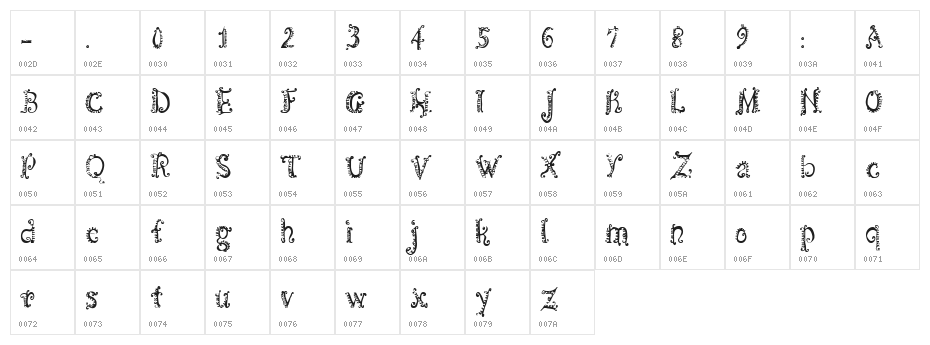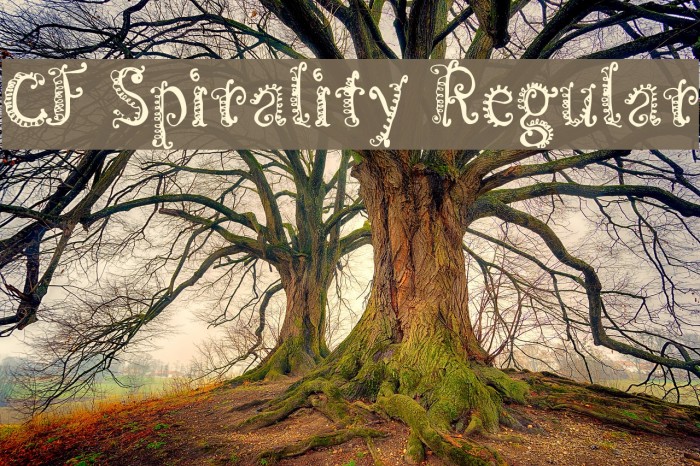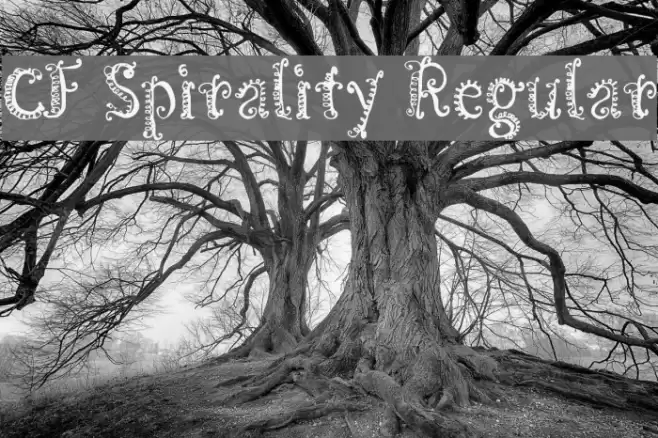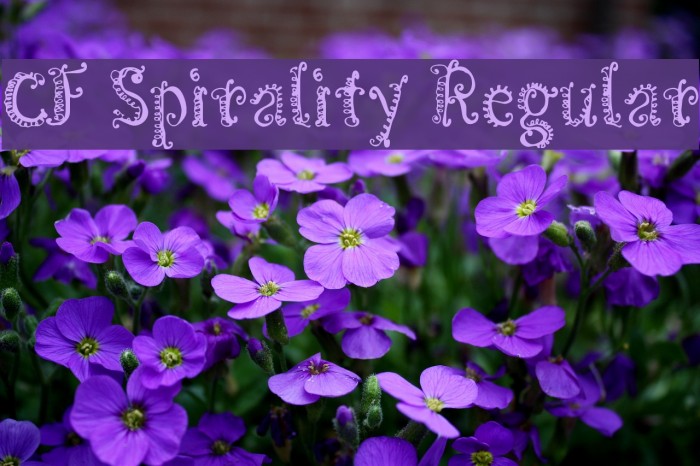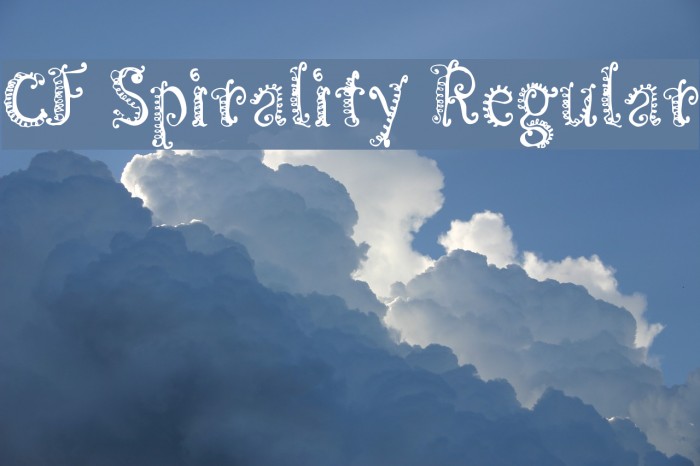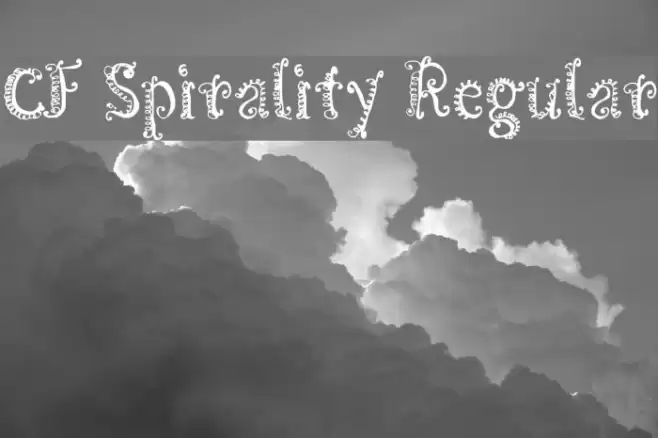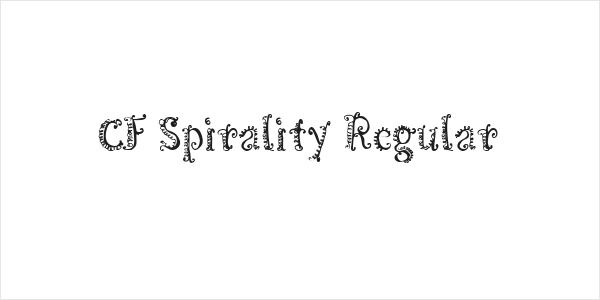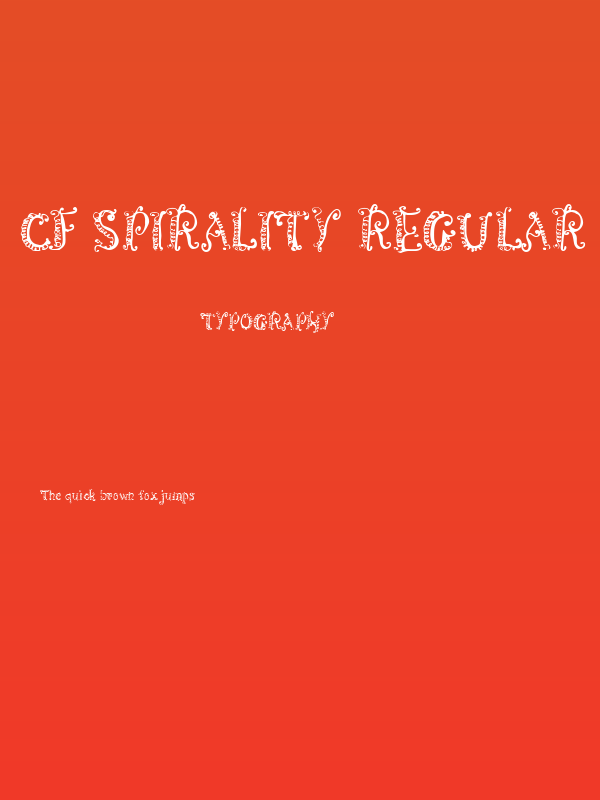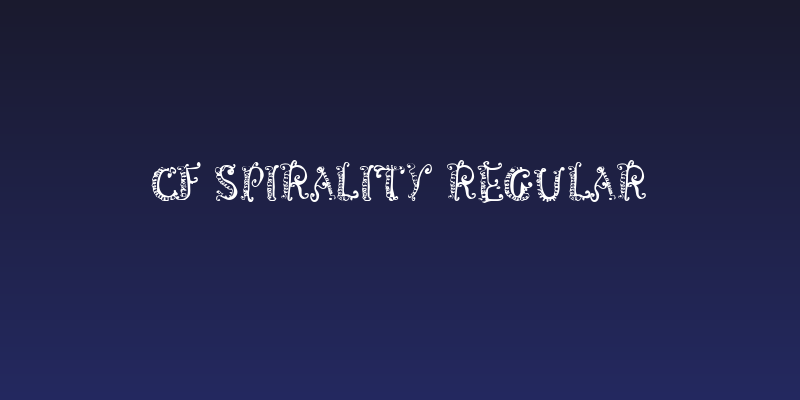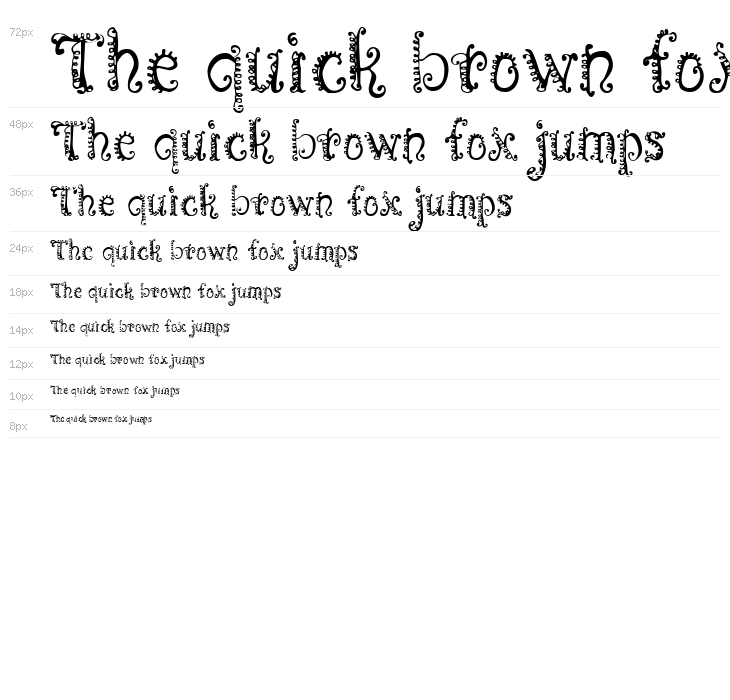
CF Spirality Regular Font
CF Spirality Regular Description
This font features an intricate and whimsical design, characterized by its decorative spirals and curls that embellish each letter. The playful and ornate style gives it a unique personality, making it stand out with its artistic flair. The letters are bold and have a substantial presence, with each character adorned with detailed, swirling patterns that add a sense of movement and creativity. This font is perfect for projects that require a touch of fantasy or a handcrafted feel, as its elaborate design elements evoke a sense of wonder and imagination.
| Proposed Projects | Ideal for fantasy-themed designs, children's book covers, creative invitations, and artistic posters. |